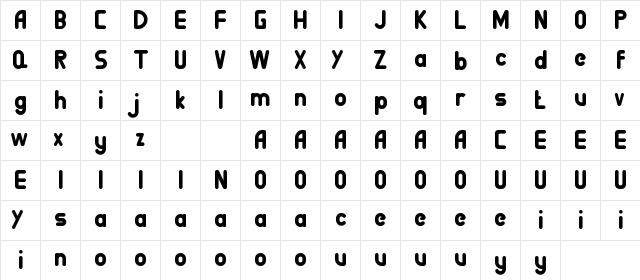
BigBOBY Demo Rounded Regular
| Foundry | Edric Studio |
| Designer | Ega Nugraha |
Design Context for BigBOBY Demo Rounded Typeface
BigBOBY Demo Rounded softens its letterforms with rounded terminals, giving it an approachable, friendly quality that works well in consumer-facing and digital contexts.
A natural fit for tech startups, health and wellness brands, children's products, and friendly consumer apps.
Font Pairing: Pairs well with a rounded or humanist sans for body copy, maintaining the friendly tone without relying on BigBOBY Demo Rounded to carry extended reading.
Pro Tip: Pair BigBOBY Demo Rounded with a geometric sans for a balanced system — the rounded softness works as a warm counterpoint to harder-edged companions.